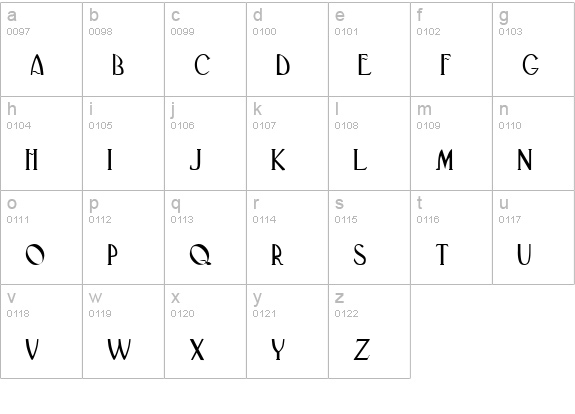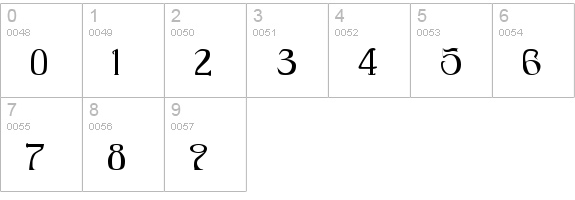
Dominikus Font Details
Dominikus font is a versatile and modern typeface that exudes elegance and sophistication. With its clean lines and balanced proportions, Dominikus is perfect for a wide range of design projects, from branding to editorial layouts. This sleek font offers a contemporary twist on traditional serif fonts, making it a popular choice among designers looking to add a touch of refinement to their work. What sets Dominikus font apart is not only its aesthetic appeal but also its accessibility. This font is available for free download at FontsMarket.com, allowing designers to easily incorporate it into their projects without any additional cost. Whether you're working on a logo, website, or print design, Dominikus font is sure to elevate your work with its timeless charm and modern flair. Download Dominikus font today and see the difference it can make in your designs.